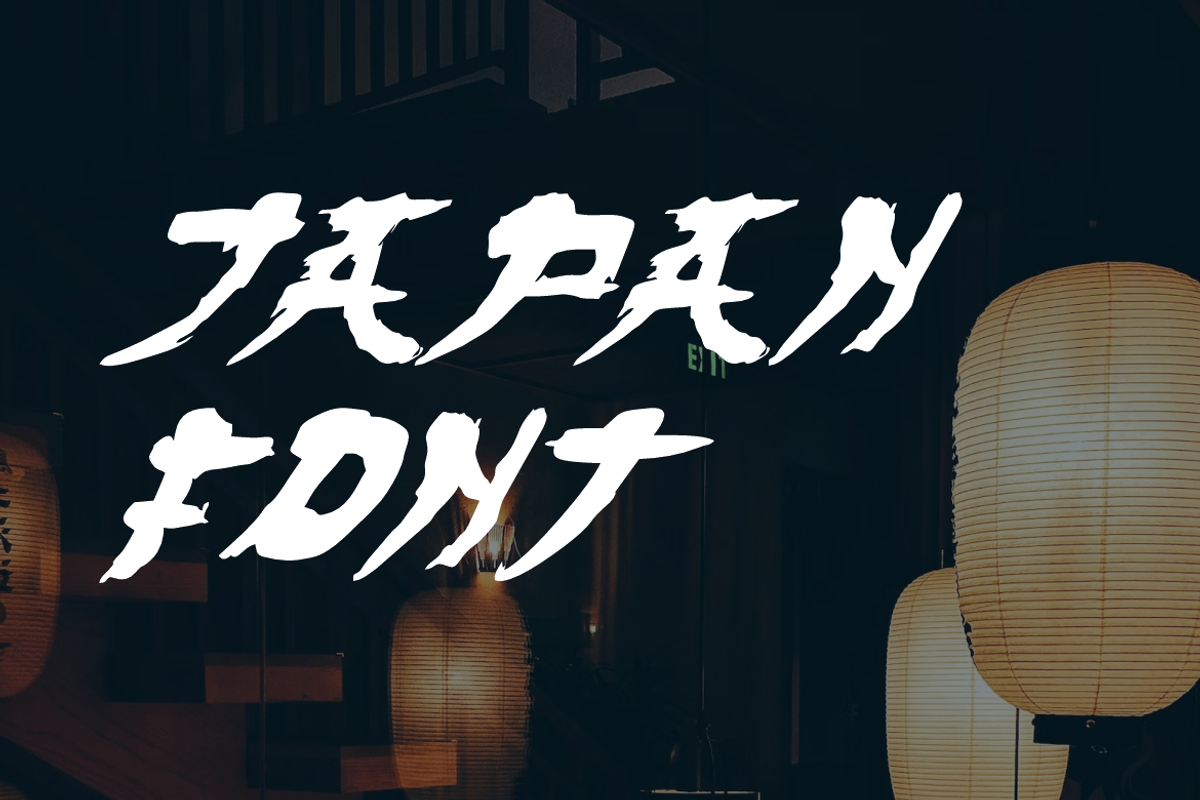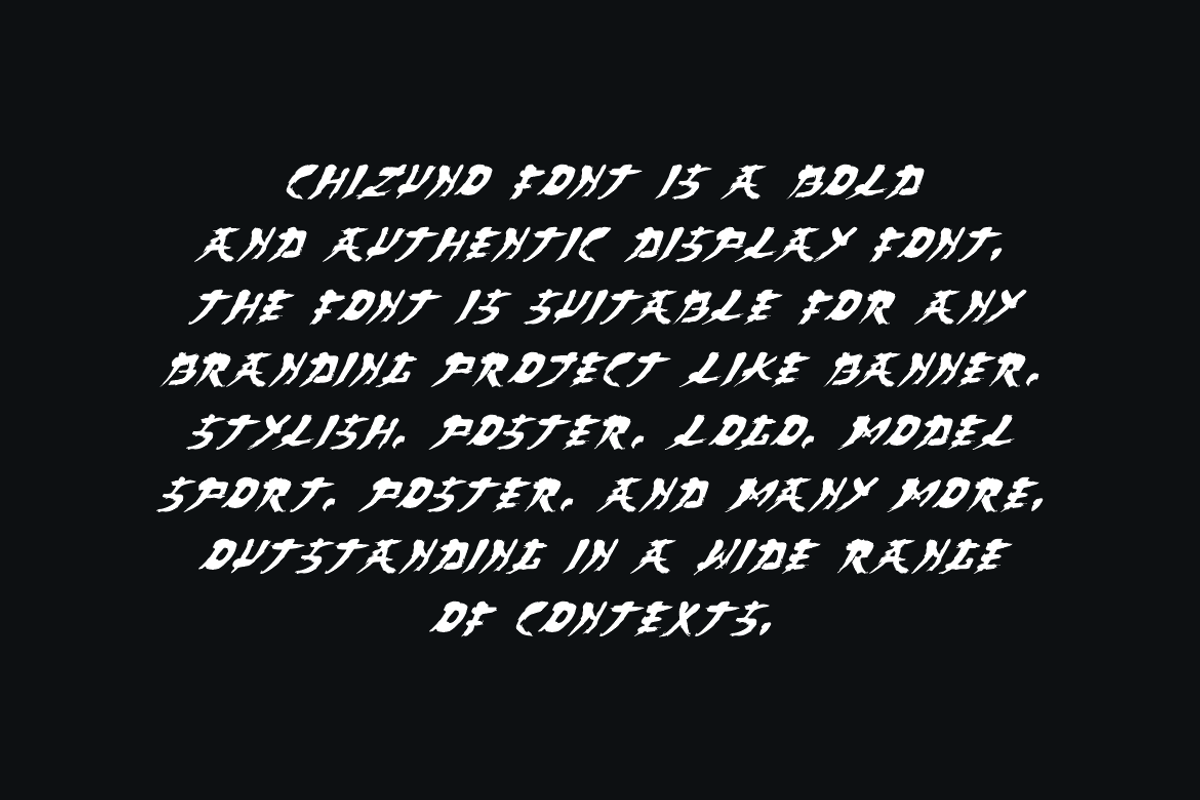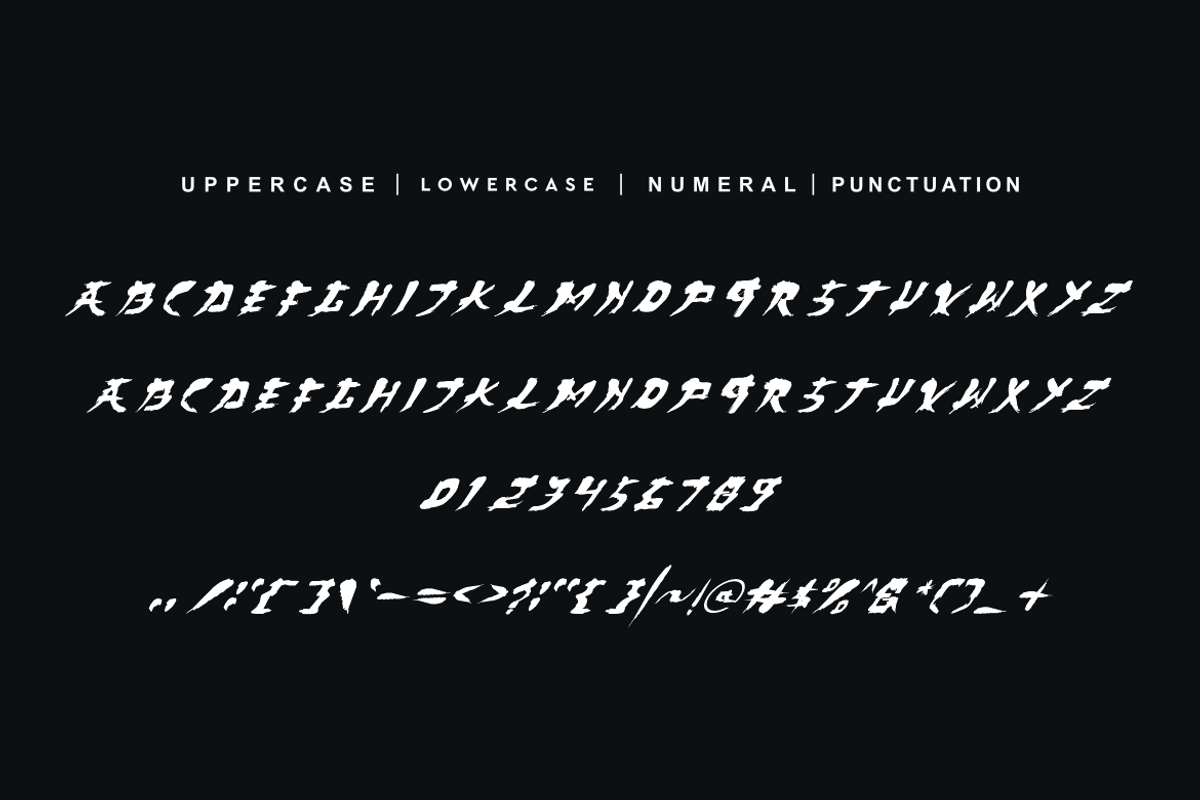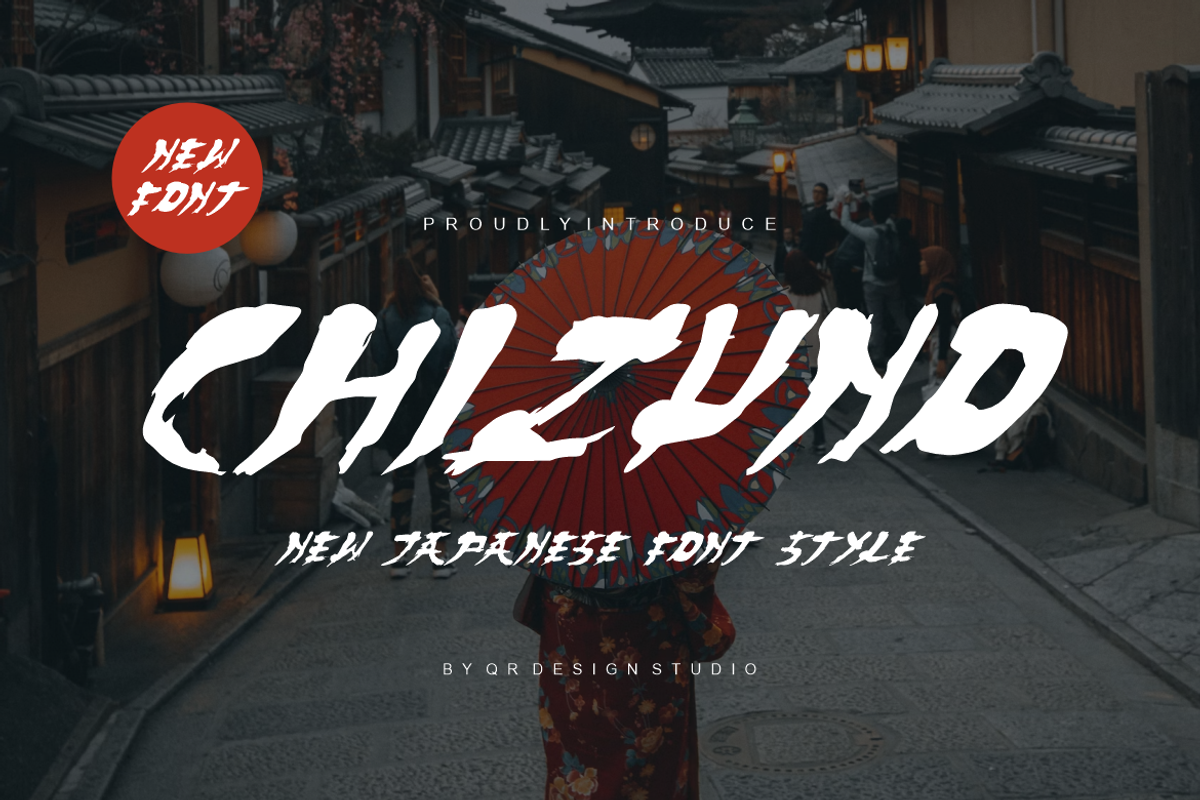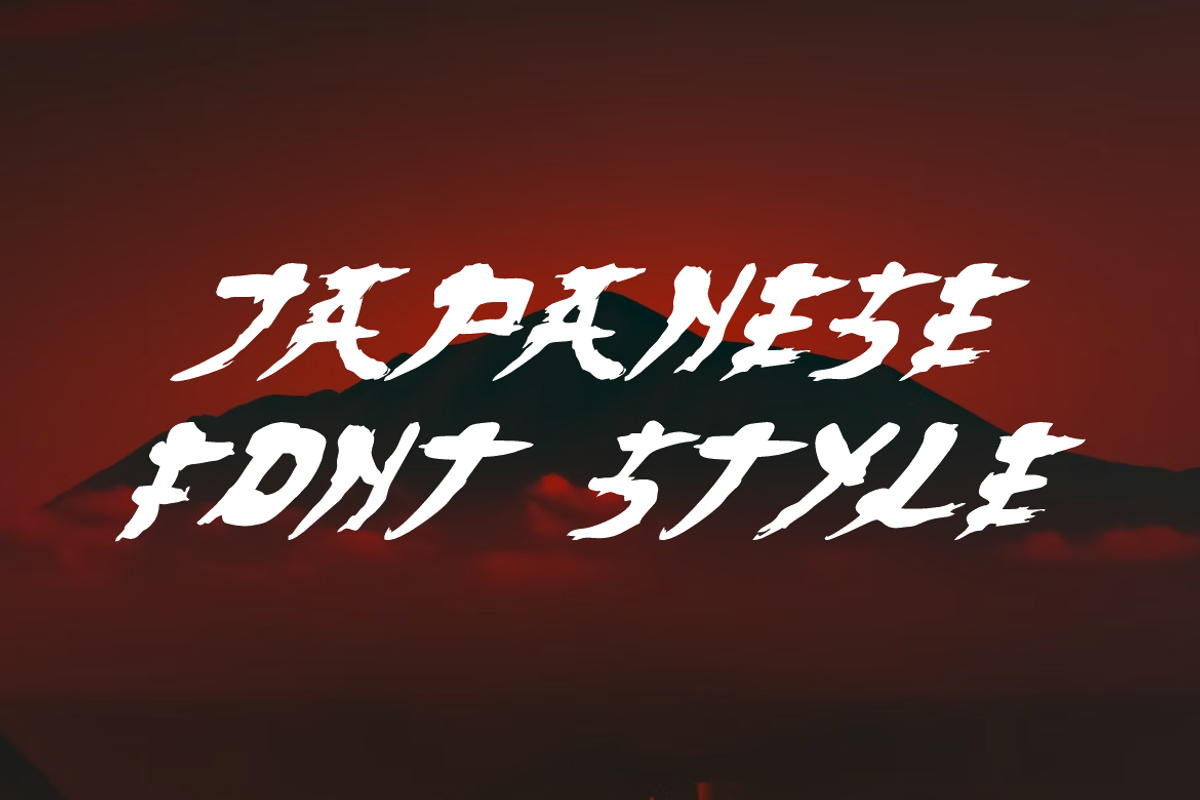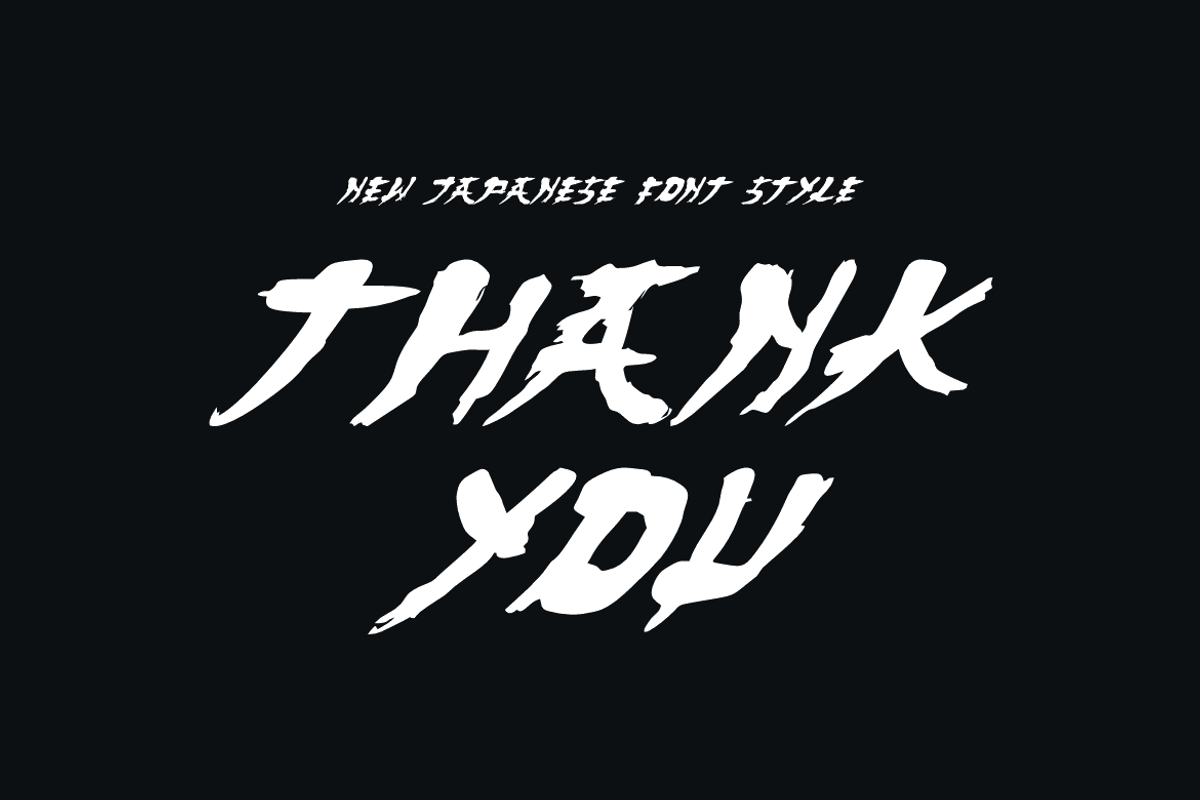
Chizuno - Japanese Font
Chizuno - Japanese Font is a bold and authentic display font. The font is suitable for any branding project like poster, japanese style, your brand, logo, sport, and many more. Outstanding in a wide range of contexts.